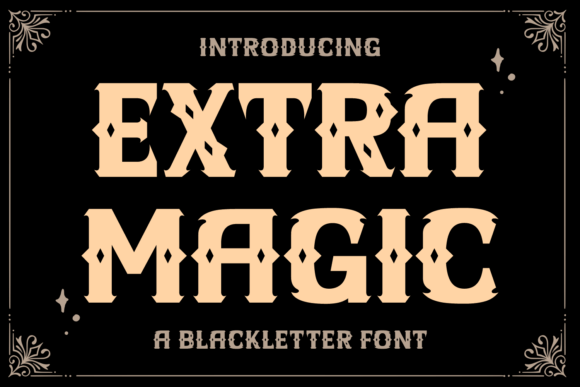
Introducing Extra Magic Font: A Bold and Striking Blackletter Typeface
In the world of typography, few fonts have managed to capture the essence of mystery and elegance as effectively as Extra Magic Font. This bold and striking blackletter font seamlessly blends traditional gothic style with modern flair, making it an ideal choice for designers looking to add a touch of sophistication to their projects. In this article, we’ll delve into the world of Extra Magic Font, exploring its unique features, design inspiration, and the various ways it can be used to elevate your designs.
The Inspiration Behind Extra Magic Font
Extra Magic Font draws inspiration from the traditional blackletter fonts of the Middle Ages, characterized by their sharp, angular letterforms and intricate detailing. However, unlike its historical counterparts, Extra Magic Font boasts a modern twist, making it perfect for contemporary designs that require a touch of vintage flair. The font’s design is a testament to the timelessness of blackletter typography, which continues to captivate audiences with its unique blend of elegance and drama.
Design Features of Extra Magic Font
Extra Magic Font is distinguished by its bold, striking letterforms, which are adorned with intricate details and ornate flourishes. The font’s sharp, angular lines and pointed serifs evoke a sense of mystery and sophistication, making it an excellent choice for designs that require a touch of drama and elegance. Some of the key design features of Extra Magic Font include:
- Sharp, Angular Letterforms: The font’s letterforms are characterized by sharp, angular lines that give it a bold and striking appearance.
- Intricate Detailing: The font features intricate detailing and ornate flourishes, which add to its sense of elegance and sophistication.
- Traditional Gothic Style: Extra Magic Font draws inspiration from traditional gothic fonts, making it perfect for designs that require a touch of vintage flair.
- Modern Flair: The font’s modern twist sets it apart from traditional blackletter fonts, making it suitable for contemporary designs.
Uses of Extra Magic Font
Extra Magic Font is a versatile typeface that can be used in a variety of design projects, including:
- Fantasy and Medieval-Inspired Designs: The font’s gothic-inspired design makes it perfect for fantasy and medieval-inspired designs, such as book covers, posters, and logos.
- Vintage Designs: Extra Magic Font’s traditional blackletter style makes it an excellent choice for vintage-inspired designs, such as advertisements, packaging, and branding materials.
- Elegant and Sophisticated Designs: The font’s intricate detailing and ornate flourishes make it suitable for elegant and sophisticated designs, such as luxury branding, high-end fashion, and fine dining.
Tips for Using Extra Magic Font Effectively
To get the most out of Extra Magic Font, here are some tips to keep in mind:
- Use it Sparingly: Due to its bold and striking design, Extra Magic Font is best used sparingly to avoid overwhelming the viewer.
- Pair it with Simple Fonts: Pair Extra Magic Font with simple, clean fonts to create visual contrast and make your design stand out.
- Experiment with Colors: The font’s intricate detailing and ornate flourishes make it perfect for experimenting with different colors and textures.
Extra Magic Font is a bold and striking blackletter font that seamlessly blends traditional gothic style with modern flair. Its sharp, angular letterforms and intricate detailing evoke a sense of mystery and elegance, making it perfect for fantasy, vintage, and medieval-inspired designs. With its versatility and unique design features, Extra Magic Font is an excellent addition to any designer’s typography arsenal.
- What inspired the design of Extra Magic Font? Extra Magic Font draws inspiration from traditional blackletter fonts of the Middle Ages, with a modern twist.
- What are some common uses of Extra Magic Font? Extra Magic Font is commonly used in fantasy, vintage, and medieval-inspired designs, as well as elegant and sophisticated designs.